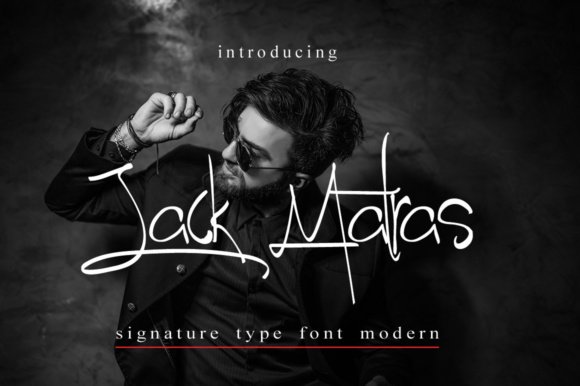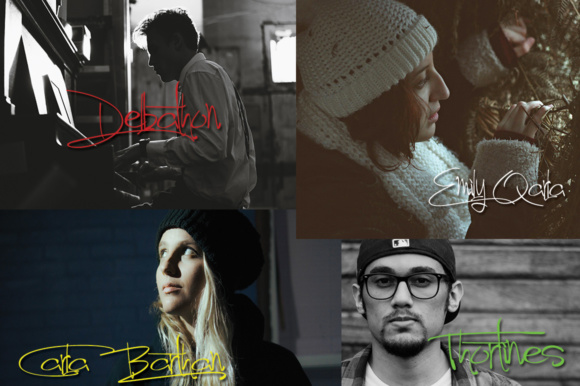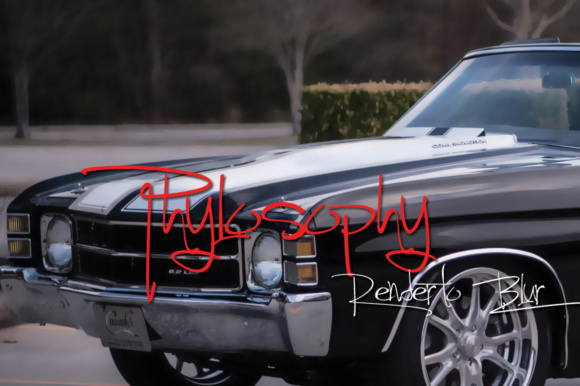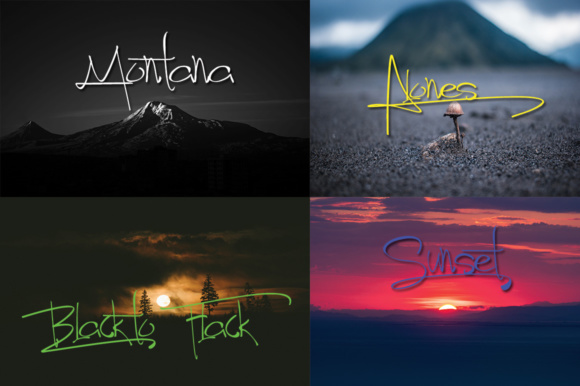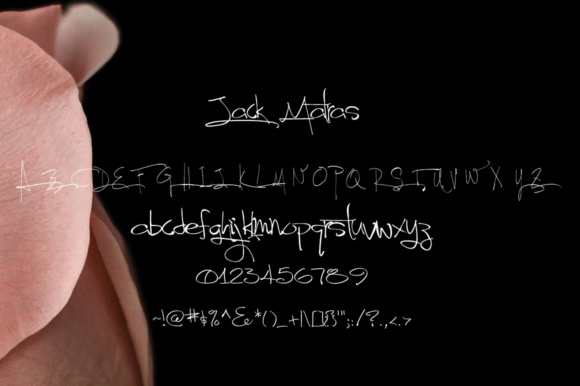
The Perfect Signature: Introducing Jack Matras Font
Have you ever sat down with a pen and paper, trying to come up with the perfect signature? You know, the one that says ‘I’m cool, I’m creative, and I’m confident.’ For designers, this moment of creativity is crucial, and the right font can make all the difference.
Enter Jack Matras Font, a fun, modern signature font that’s sure to turn heads. This versatile font is designed to add a touch of personality to your designs, making it perfect for branding, typography projects, and even personal signatures. With its sleek, modern feel, Jack Matras Font is a valuable addition to any designer’s toolkit.
Key Features of Jack Matras Font
- Font Family: Jack Matras
- Character Set: Latin, Cyrillic, and Greek alphabets
- Unique Characteristics:
- Hand-drawn, vintage aesthetic
- Highly customizable with multiple font weights and styles
- Supports a wide range of languages and scripts
Jack Matras Font Review
As a designer, I was excited to try out the Jack Matras font. Overall, I have mixed feelings about it. Here’s what I liked and disliked:
- The font has a unique, hand-drawn feel that’s perfect for creating a personal or vintage vibe in your designs.
- The font is highly legible, even at smaller sizes, making it great for body text or headings.
- The font family includes a range of weights and styles, giving you plenty of options for customizing your designs.
- The font’s unique feel can sometimes make it look a bit inconsistent or amateurish, especially when used in large quantities.
- The font’s stroke width can be a bit too thick in some weights, which can make it look a bit chunky.
- The font doesn’t include many ligatures or special characters, which can limit its usability in certain contexts.
The Jack Matras font is a solid choice for designers looking for a unique, hand-drawn feel. While it has some limitations, it’s still a versatile font that can add a lot of character to your designs. With a bit of careful usage, it can be a great addition to your design toolkit.
Tips for Getting the Most Out of the Jack Matras Font
For best results, use the Jack Matras Font in bold or italic styles to add emphasis to your text.
Pair the Jack Matras Font with other fonts to create a unique and eye-catching design.
The Jack Matras Font is perfect for:
Designing vintage-inspired posters and flyers.
Creating a retro-themed website or social media campaign.
Adding a touch of elegance
Alternatives to Jack Matras Font
Playfair Display is a luxurious and elegant serif font, ideal for titles and headings in high-end branding and advertising projects. It has a classic look with intricate details and flourishes, making it perfect for creating a sophisticated and refined atmosphere.
Comparison to Jack Matras Font: Playfair Display has a more ornate and luxurious feel compared to Jack Matras Font, which has a more modern and minimalist look. While Jack Matras Font is great for clean and simple designs, Playfair Display is better suited for projects that require a touch of elegance and sophistication.
Great Vibes is a modern and stylish script font, perfect for creating a friendly and approachable atmosphere. It has a relaxed and casual feel, making it ideal for branding and advertising projects that require a sense of fun and playfulness.
Comparison to Jack Matras Font: Great Vibes has a more fluid and dynamic feel compared to Jack Matras Font, which has a more rigid and structured look. While Jack Matras Font is great for projects that require a sense of professionalism and authority, Great Vibes is better suited for projects that require a sense of friendliness and approachability.
Carolyna Pro is a beautiful and elegant serif font, ideal for titles and headings in high-end branding and advertising projects. It has a classic look with a touch of modernity, making it perfect for creating a sophisticated and refined atmosphere.